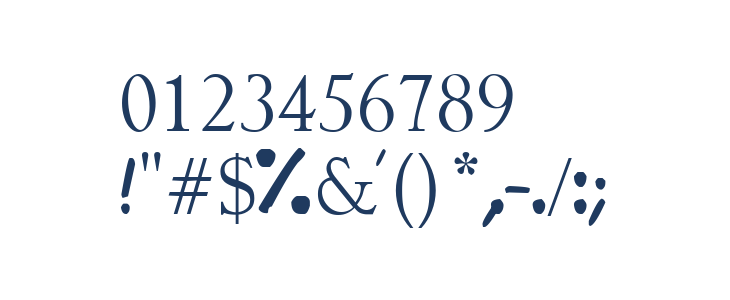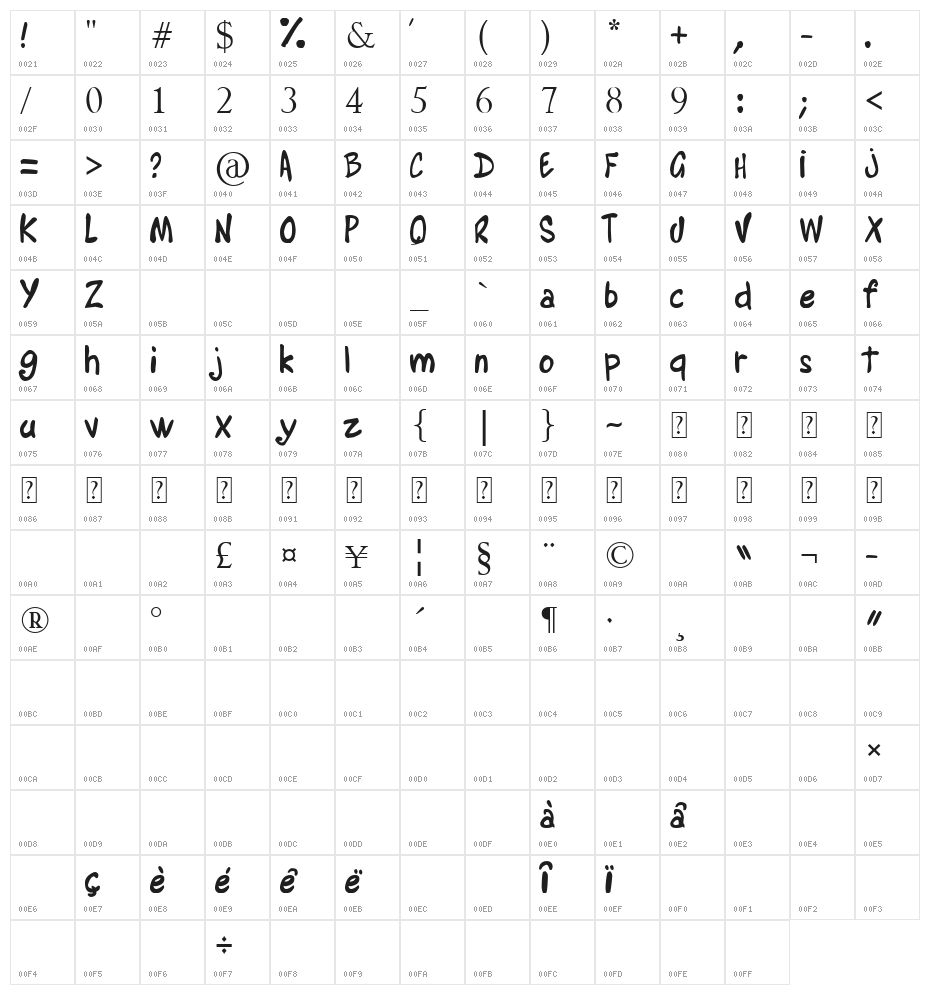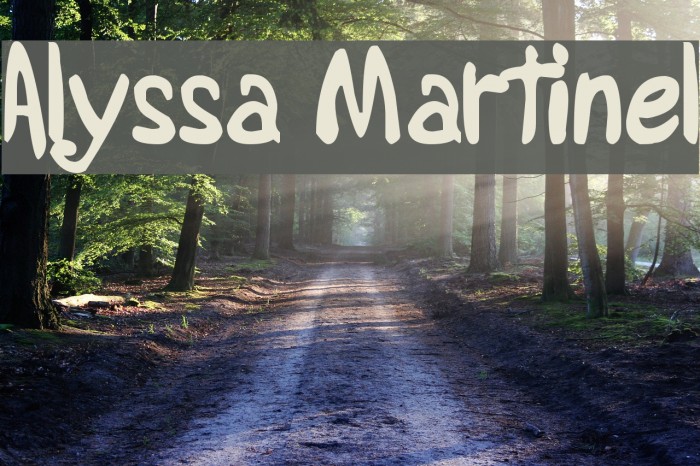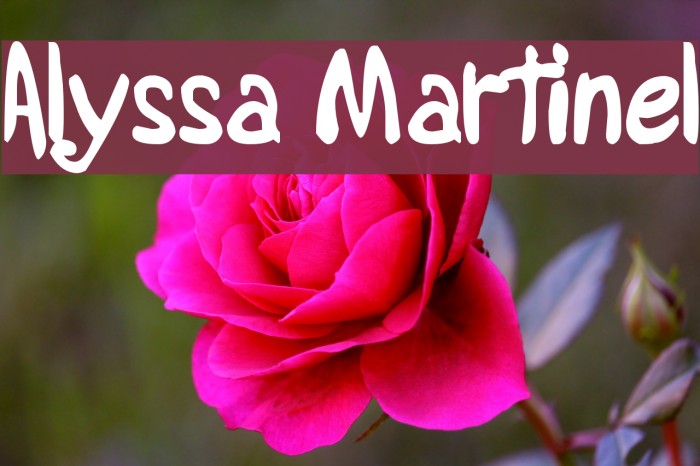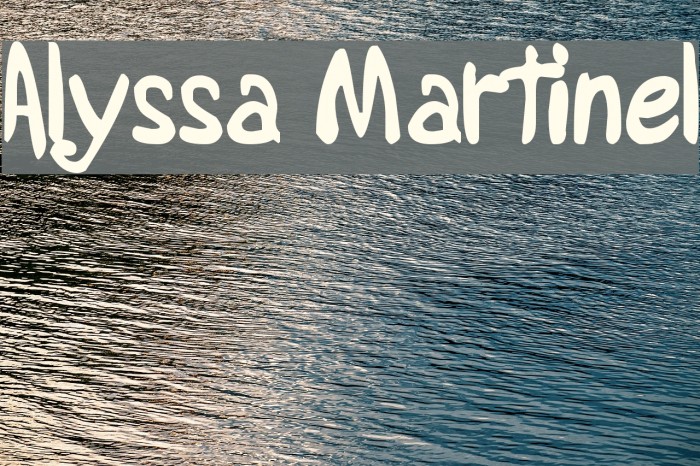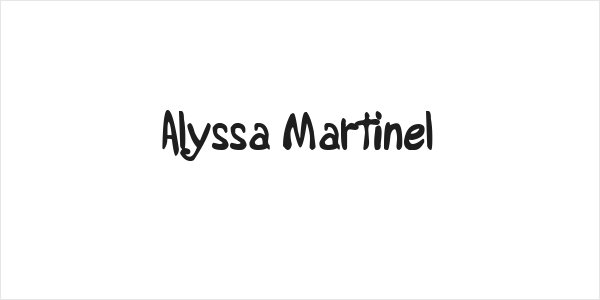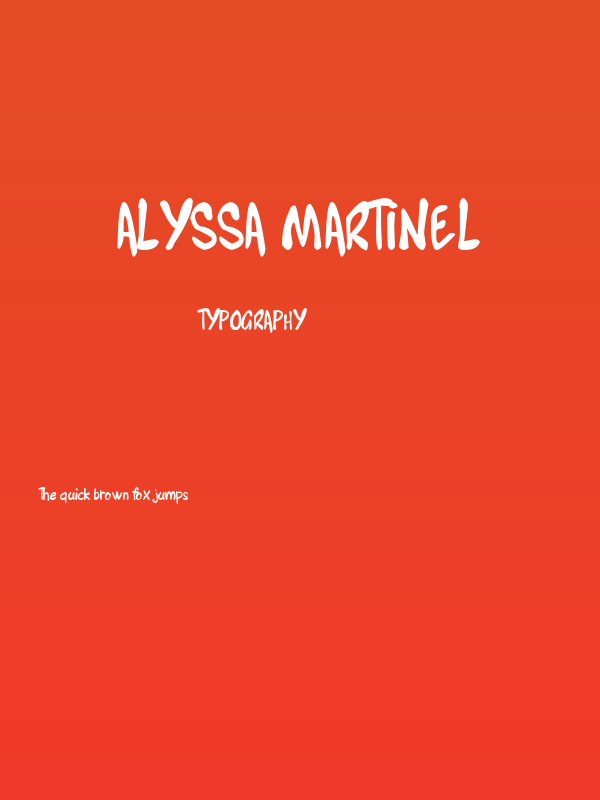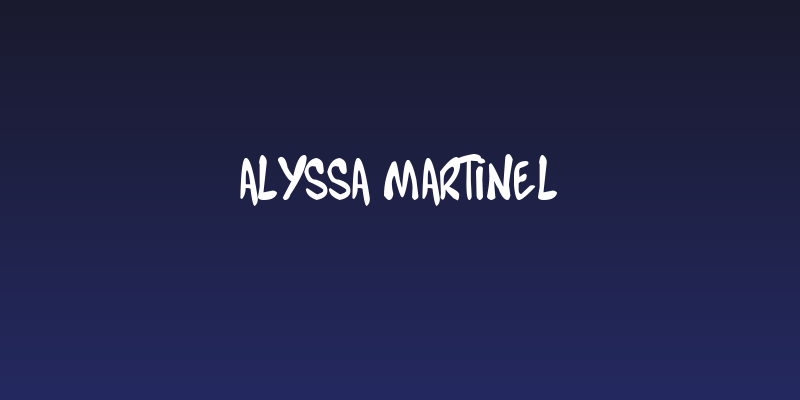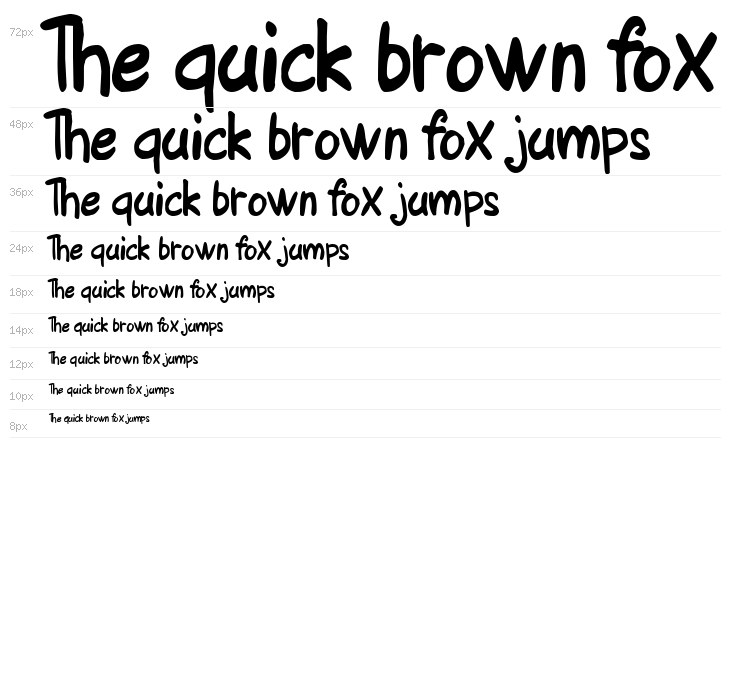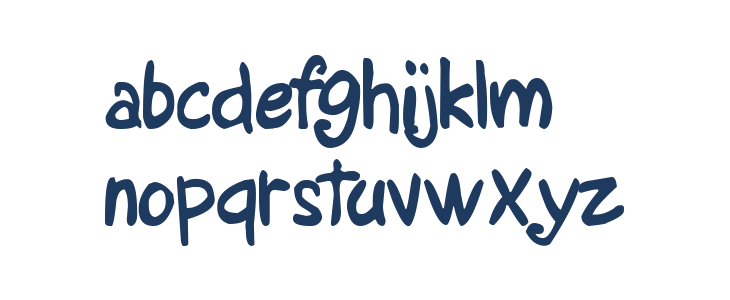
Alyssa Martinel Font
Alyssa Martinel Description
This font features a playful and energetic handwritten style, characterized by its bold and slightly irregular strokes. The uppercase letters are tall and expressive, while the lowercase letters maintain a consistent flow with a touch of whimsy. The numbers are clear and distinct, matching the overall playful aesthetic. Special characters are creatively integrated, adding to the font's unique personality. This font is perfect for projects that require a personal and informal touch, such as invitations, greeting cards, or playful branding.
| Overall Style | Playful, Energetic, Informal |
| Proposed Projects | Ideal for greeting cards, playful branding, invitations, and informal designs. |